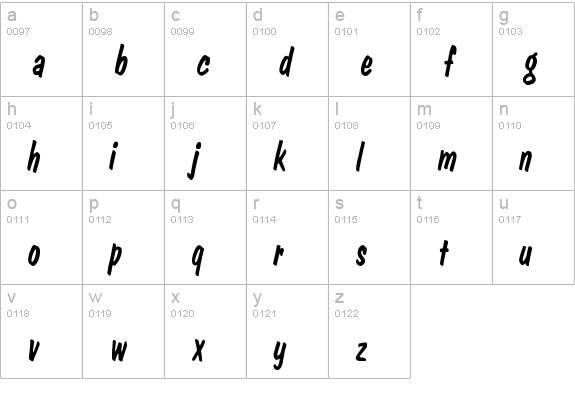
DomDiagonal Font Details
Introducing DomDiagonal, a sleek and modern font that exudes sophistication and elegance. With its unique diagonal design, this font is sure to make a statement in any project. The clean lines and sharp angles of DomDiagonal add a touch of contemporary flair to your designs, making it perfect for branding, packaging, and more. This versatile font is available for free download at FontsMarket.com, making it accessible to all designers looking to elevate their work with a touch of sophistication. Whether you're creating a logo, poster, or website, DomDiagonal is the perfect choice to add a touch of modernity and style to your designs. Download DomDiagonal today and unleash your creativity with this stunning font!